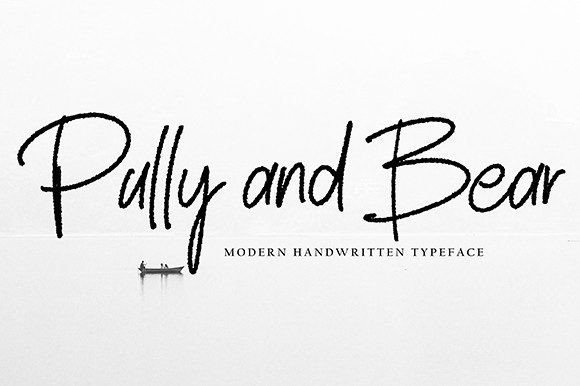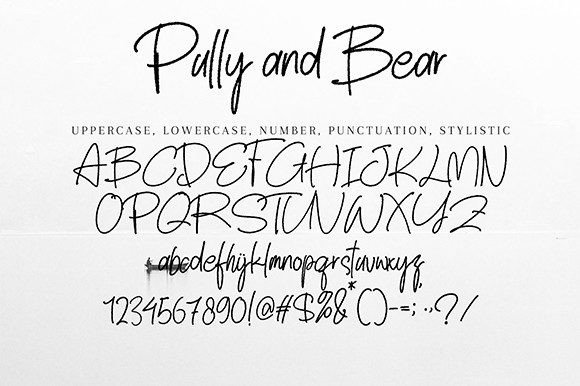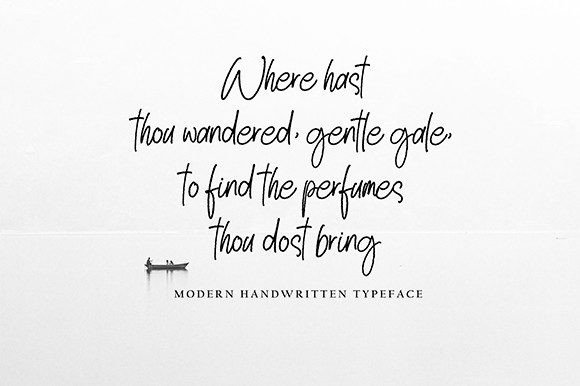
Pully and Bear Font
Pully and Bear is a script font with a new style. This typeface will be perfect for many different projects such as quotes, logos, blog headers, posters, banding, letters, invitations, stationery, etc.